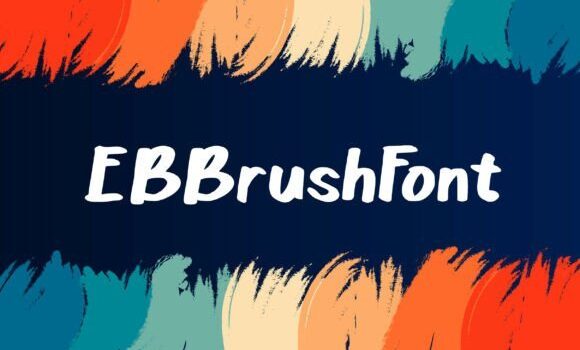
ebbrush
Ebbrush Font – Free Download Introduction to Ebbrush Font Unleash creativity with the EBBrush Font, precision-tailored for generating bold comic-style artwork. 📸 Preview Gallery 3 images 📌 Product Name Ebbrush Font 👤 Author erylboi 📂 Category Explore ⬇️ Download Ebbrush